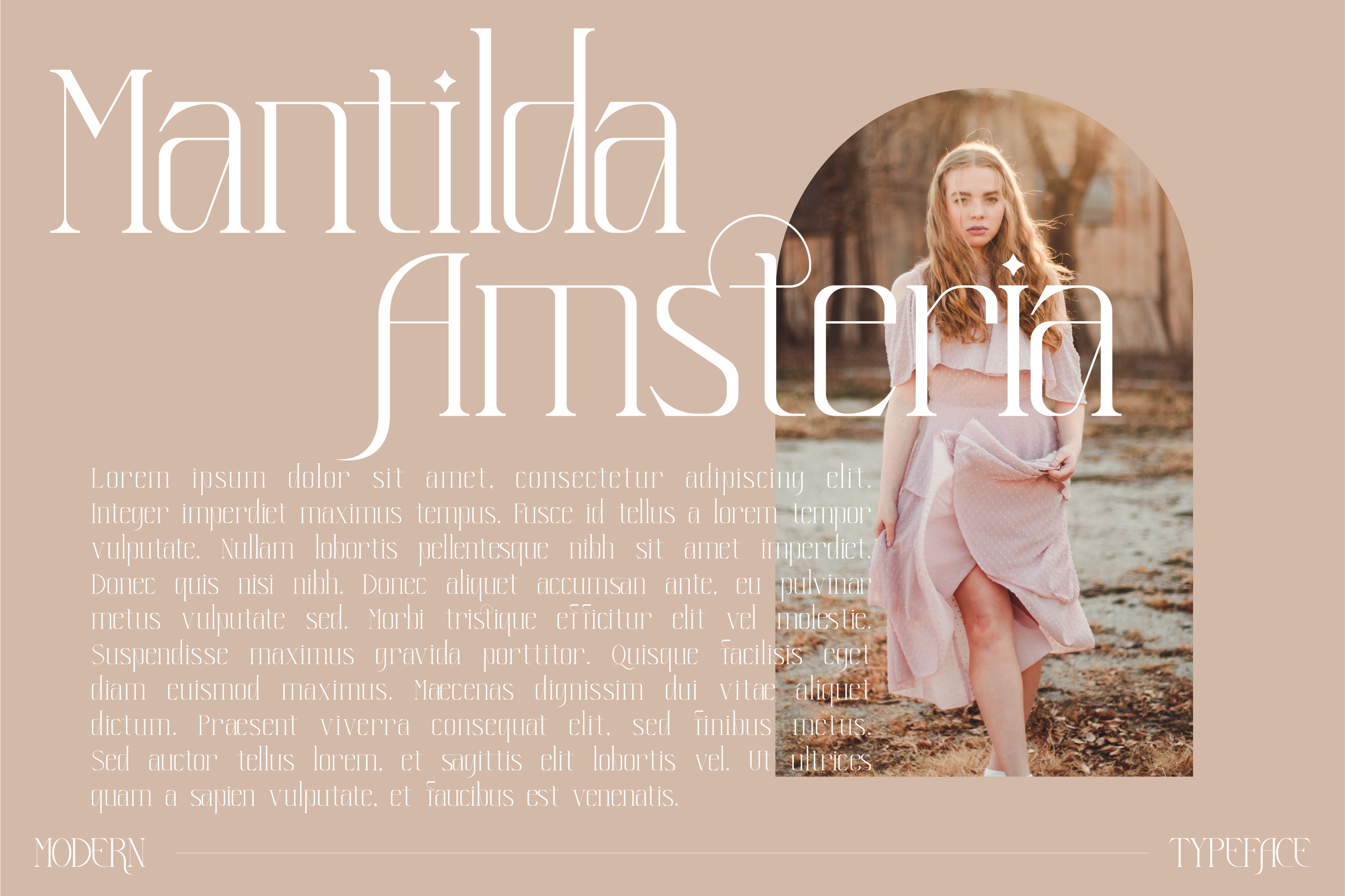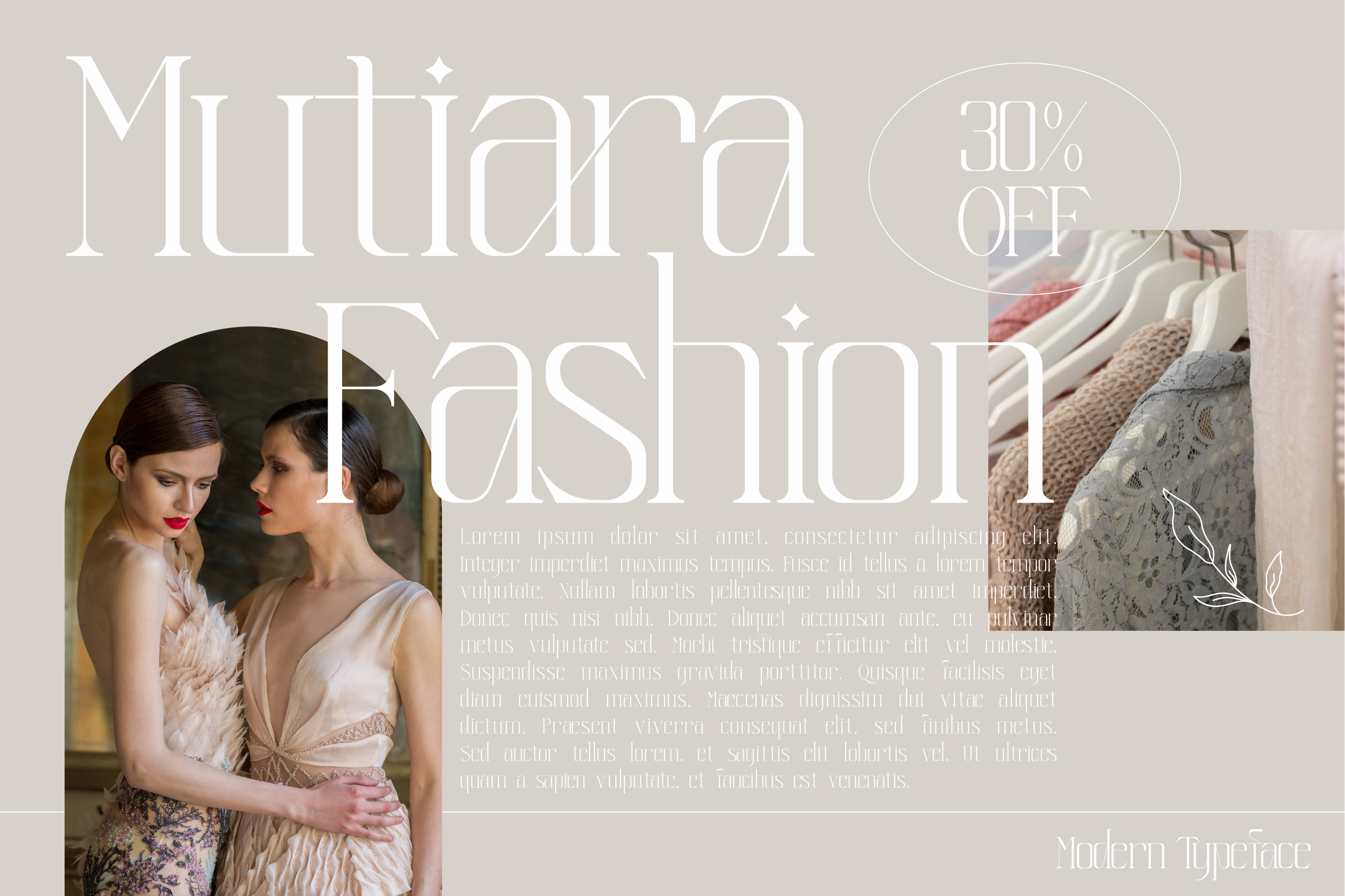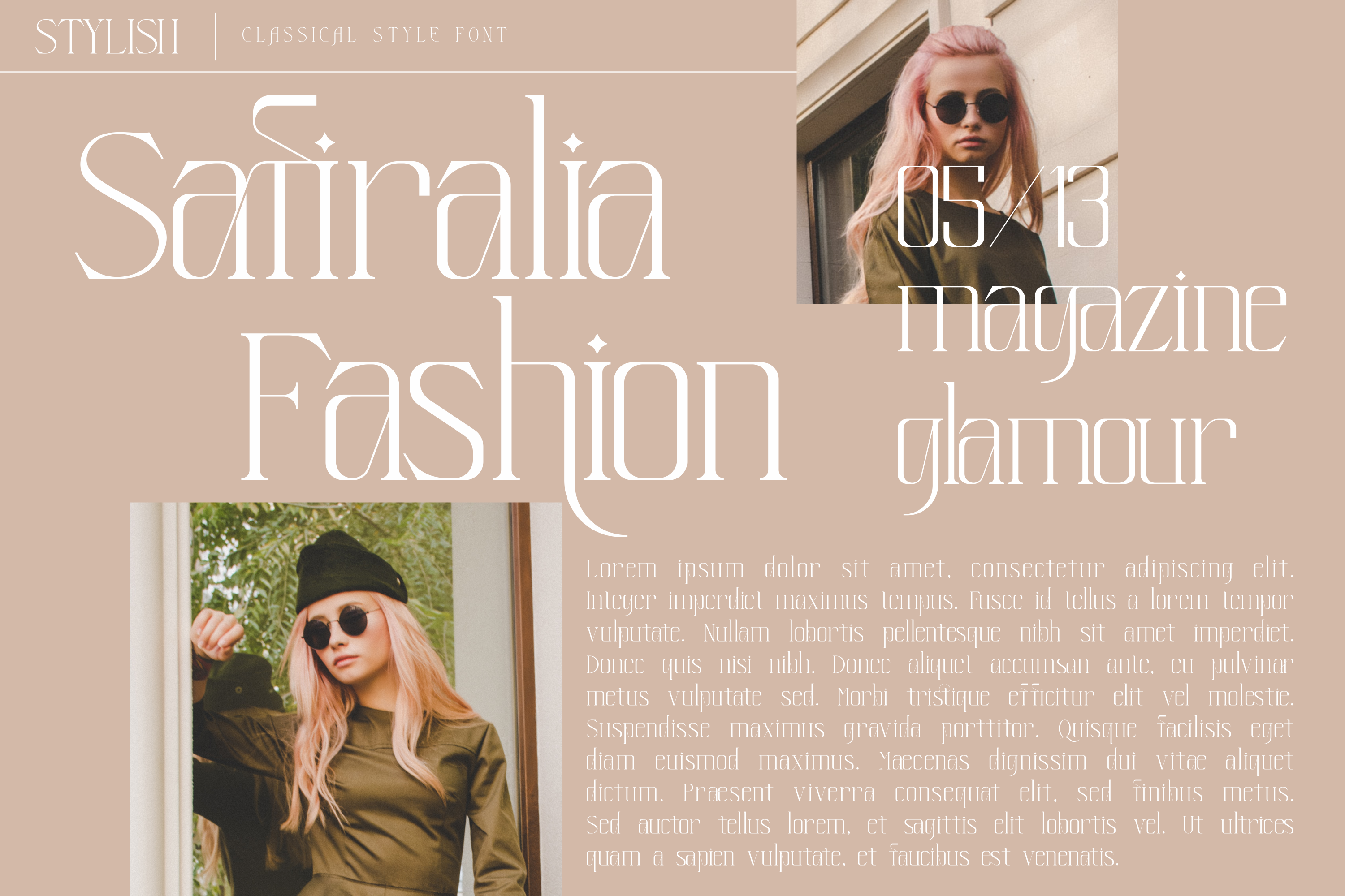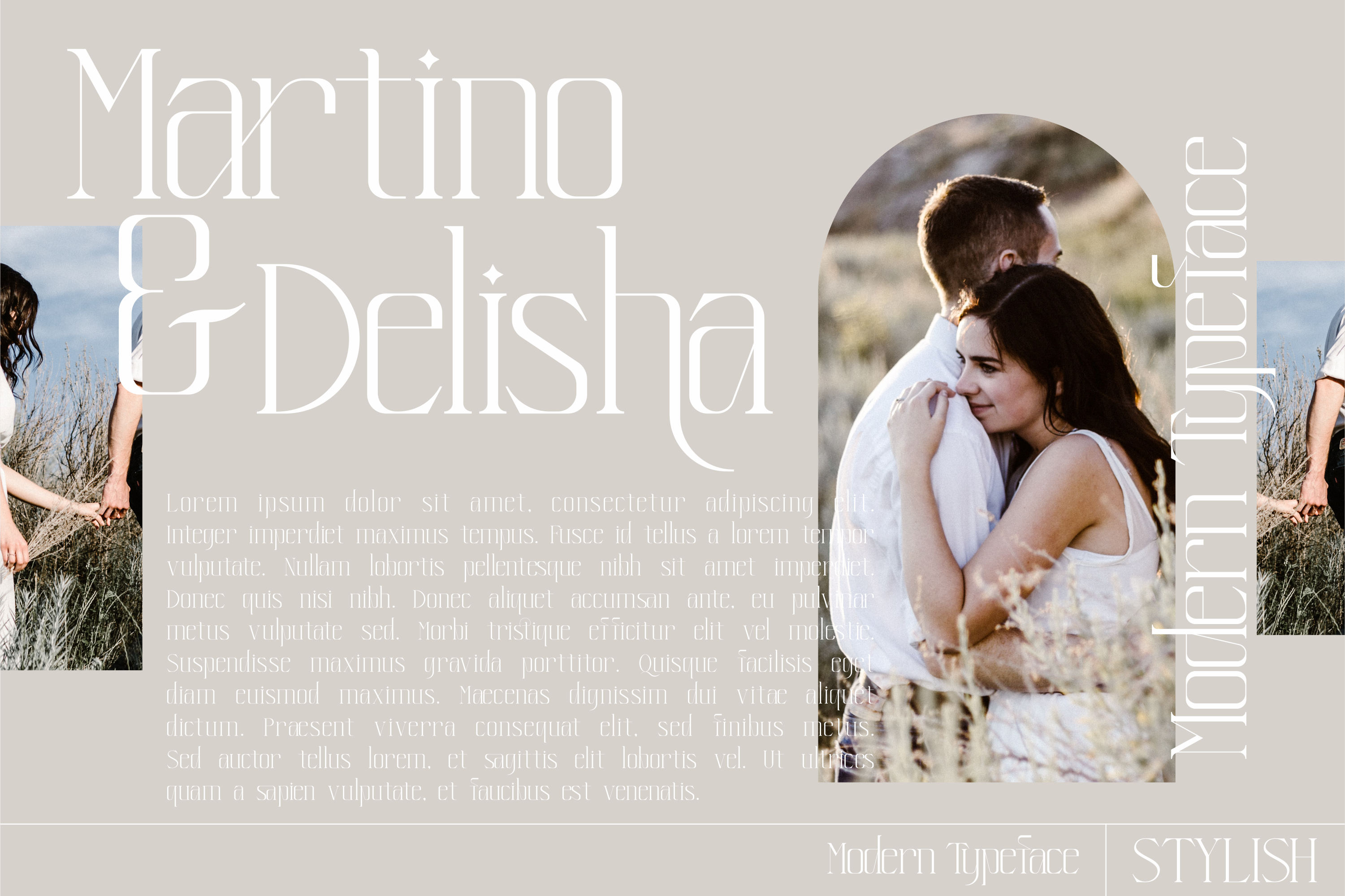
Histeria Serif Font
It’s a serif modern and classic typeface that has own unique style & modern look. This typeface is perfect for an elegant & luxury logo, book or movie title design, fashion brand, magazine, clothes, lettering, quotes, and so much more.